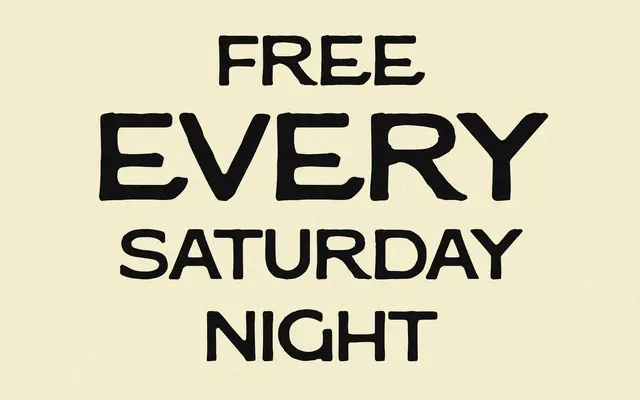
Barrera
A single-weight hand-drawn display face with clean shapes and deliberate irregularities, designed in Maui.
Drawn by hand in Maui, it carries the subtle inconsistencies of a natural drawing process without tipping into rough or overly casual territory. The 150-glyph set covers basic Latin with a limited range of accented characters, making it suitable for logos, packaging and short display settings. A modest single-weight offering that sits comfortably in branding work where a restrained personality is preferable to high drama.
Described explicitly as a display font with natural irregularities from hand-drawing; its quiet, clean character places it in the hand-drawn display subcategory rather than script or brush.